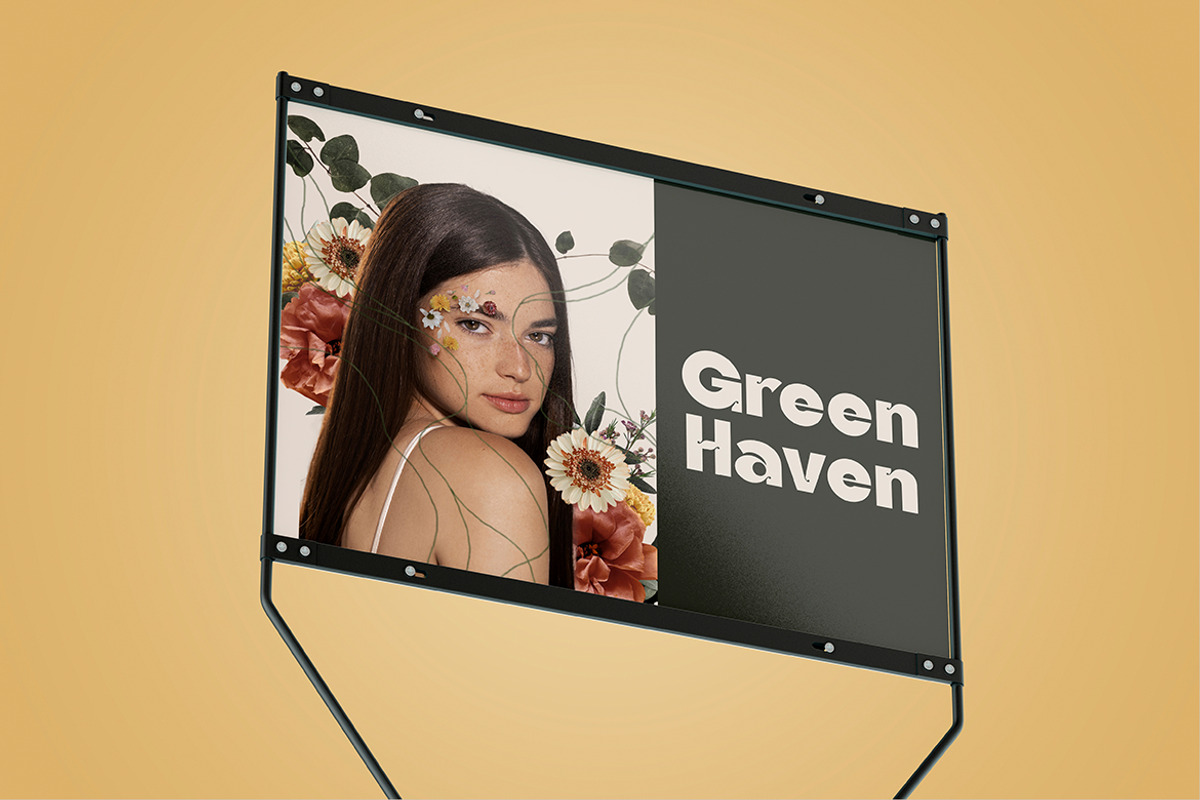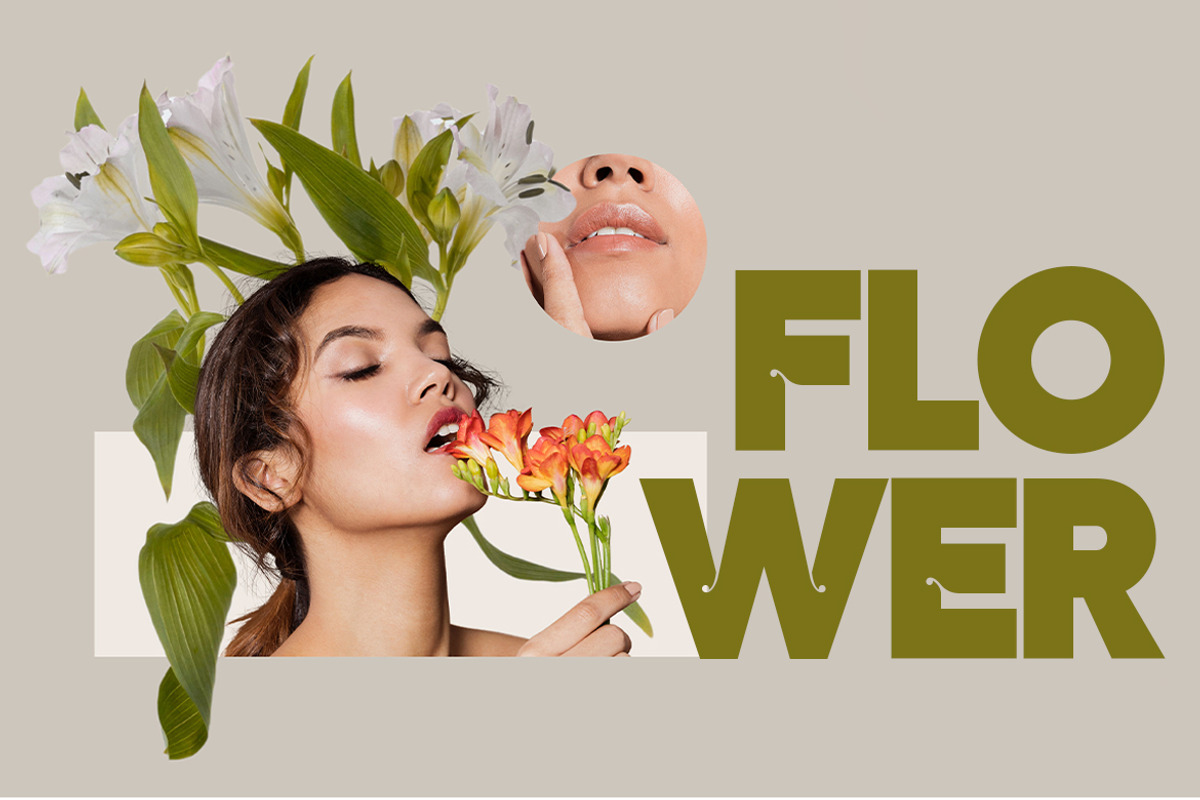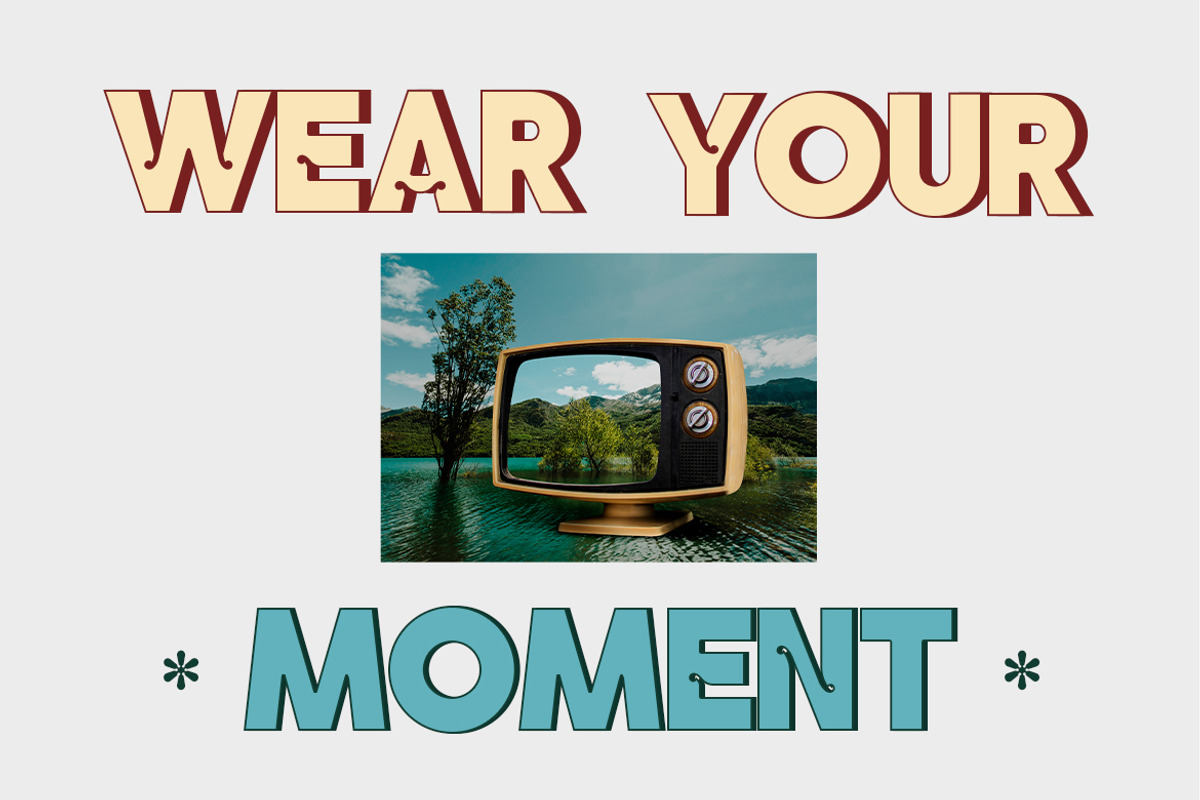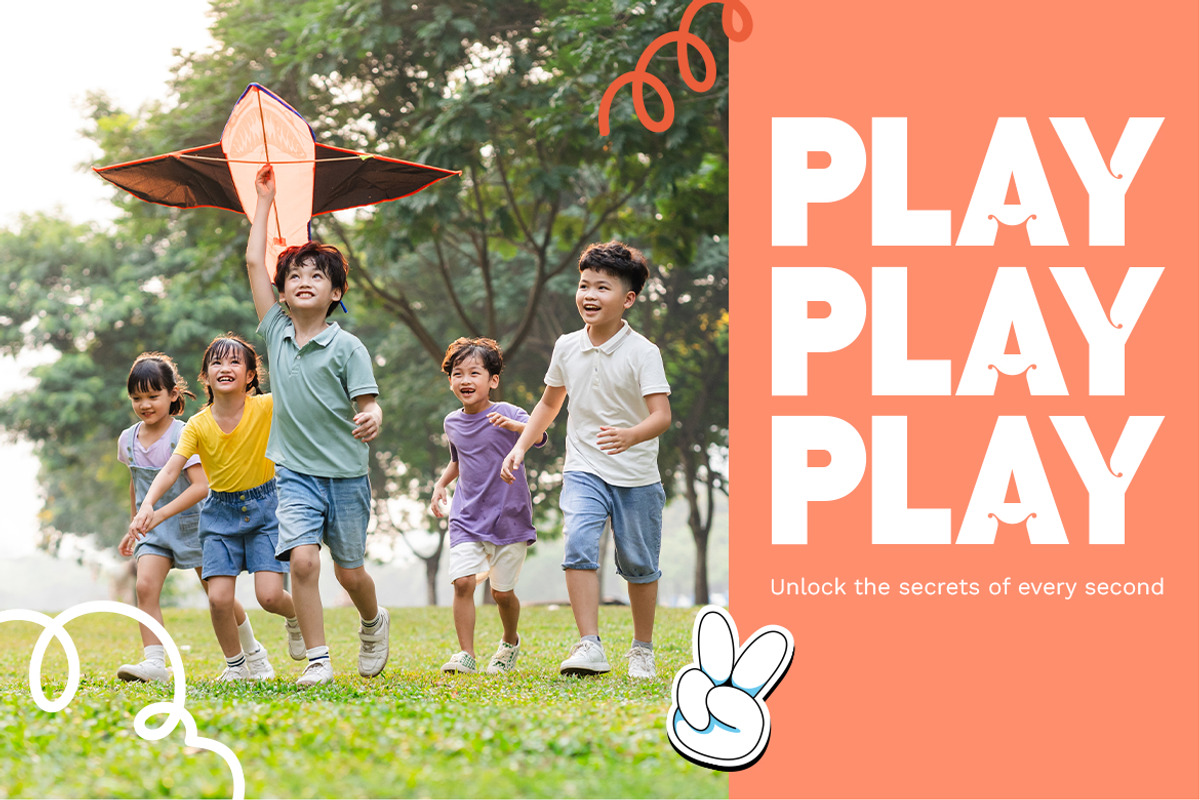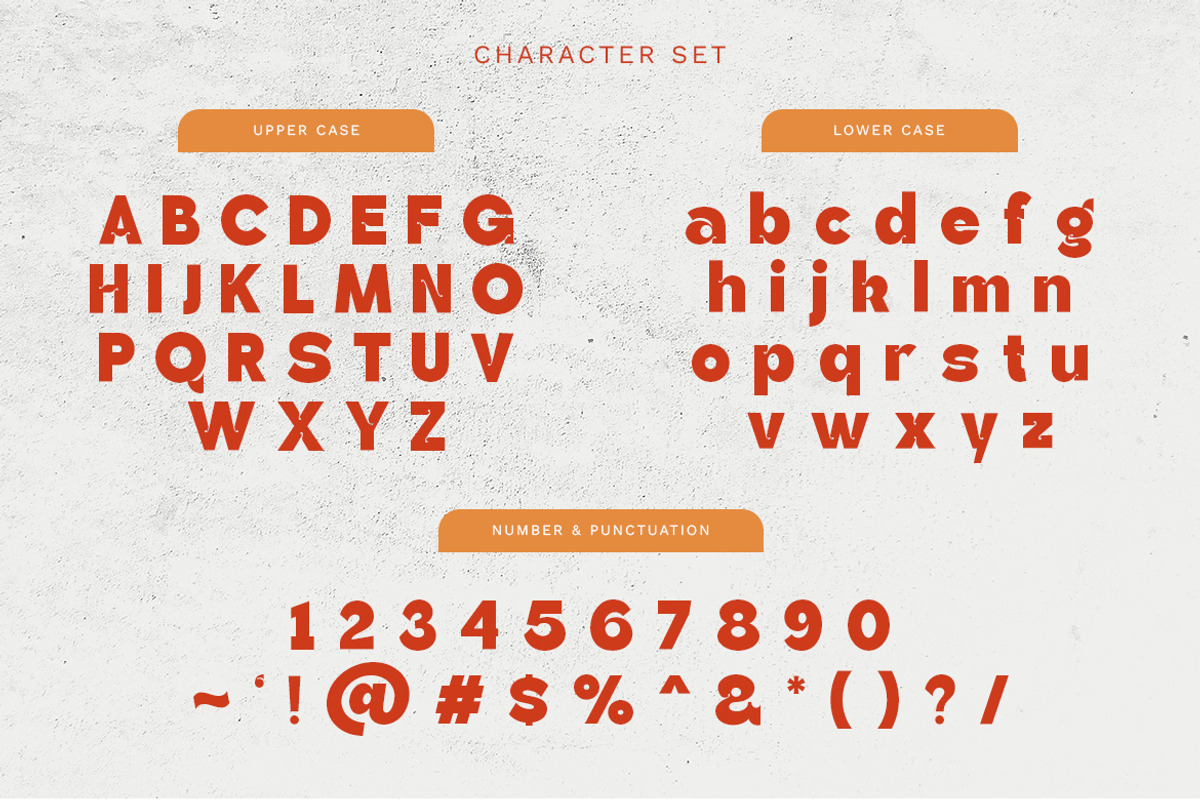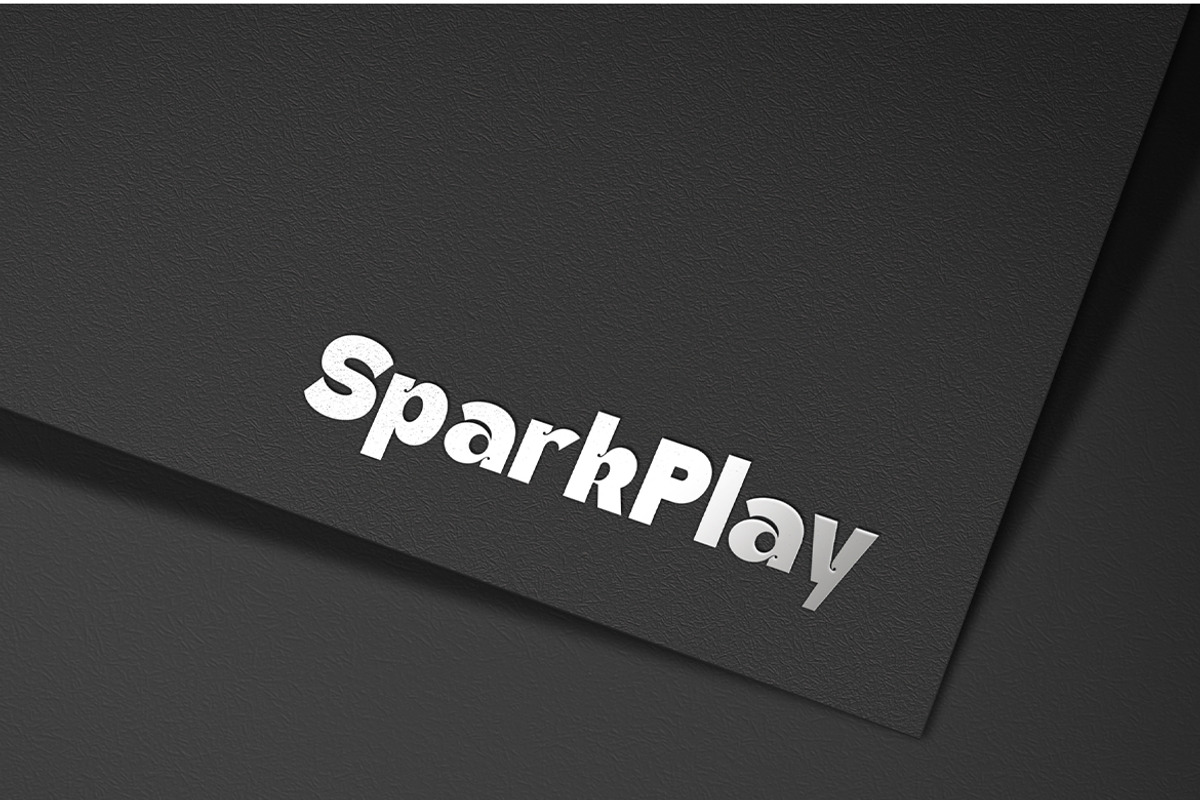
Wyler Sans Serif Font
Wyler Sans Serif Font typeface excellent used for the manufacture quote text, logotype, header magazine, and many more.
- Numeral & Punctuations